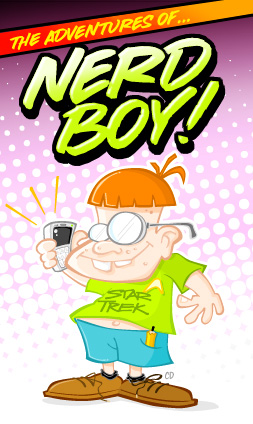
LHF Fast Slant A refreshing change from all the overused and "too-clean" casual styles available. Ideal for comic books or signage. Retains a hand-lettered look by using different styles for uppercase and lowercase keys (note the different "A" and "S" used in the design to the left). Mix them up and be creative!